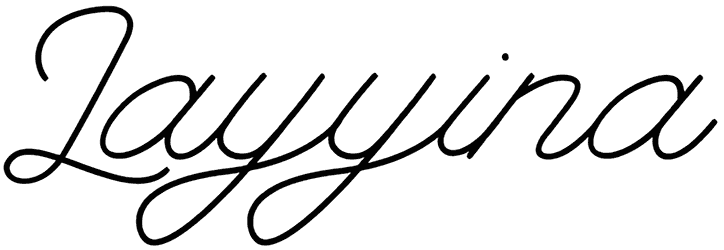
Layyina Font
Feminine, gentle, and superficial qualities come to mind when you see Layyina. This feminine font has narrow lines that are carefully written and managed to create a human and personal feel. For this reason, it can appear very successful wherever there is a need to communicate directly with the audience.
So if you want to create a personal touch in packaging, books, magazines, and clothing, download this script font and double your power with it.